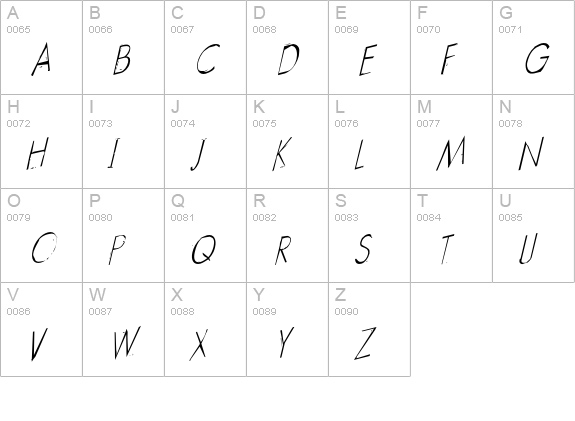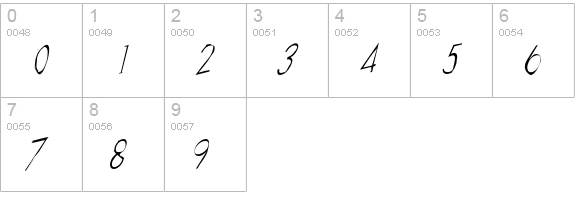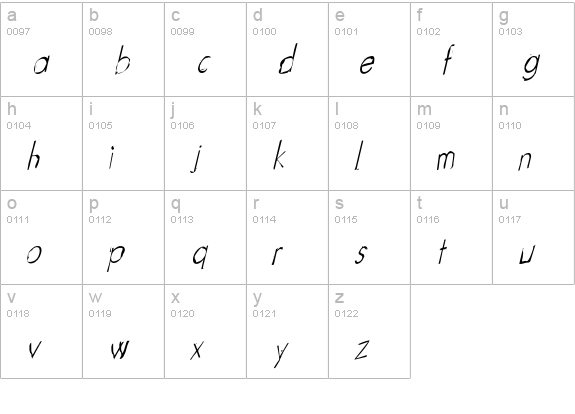
Garbage-Italic is a distinctive, italic variant in the Garbage typeface family \xE2\x80\x94 well suited to design and typography projects.
Garbage-Italic font is a unique and eye-catching typeface that exudes a sense of creativity and edginess. With its distorted and irregular letterforms, Garbage-Italic adds a touch of rebellious charm to any design project. This font is perfect for making a bold statement or adding a grungy vibe to your work. The best part? Garbage-Italic is completely free to download at FontsMarket.com. Whether you're working on a poster, logo, or any other design project, this font is sure to make a lasting impression. Download Garbage-Italic today and unleash your creativity with this one-of-a-kind typeface.